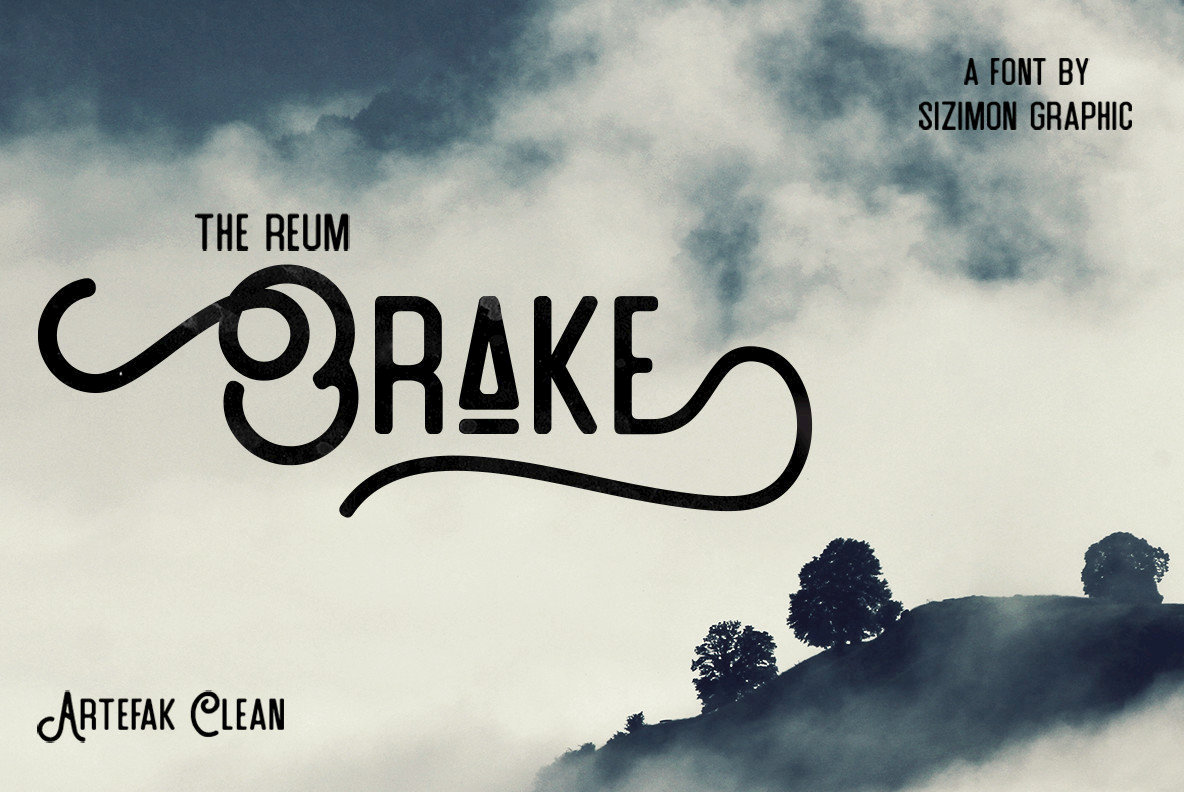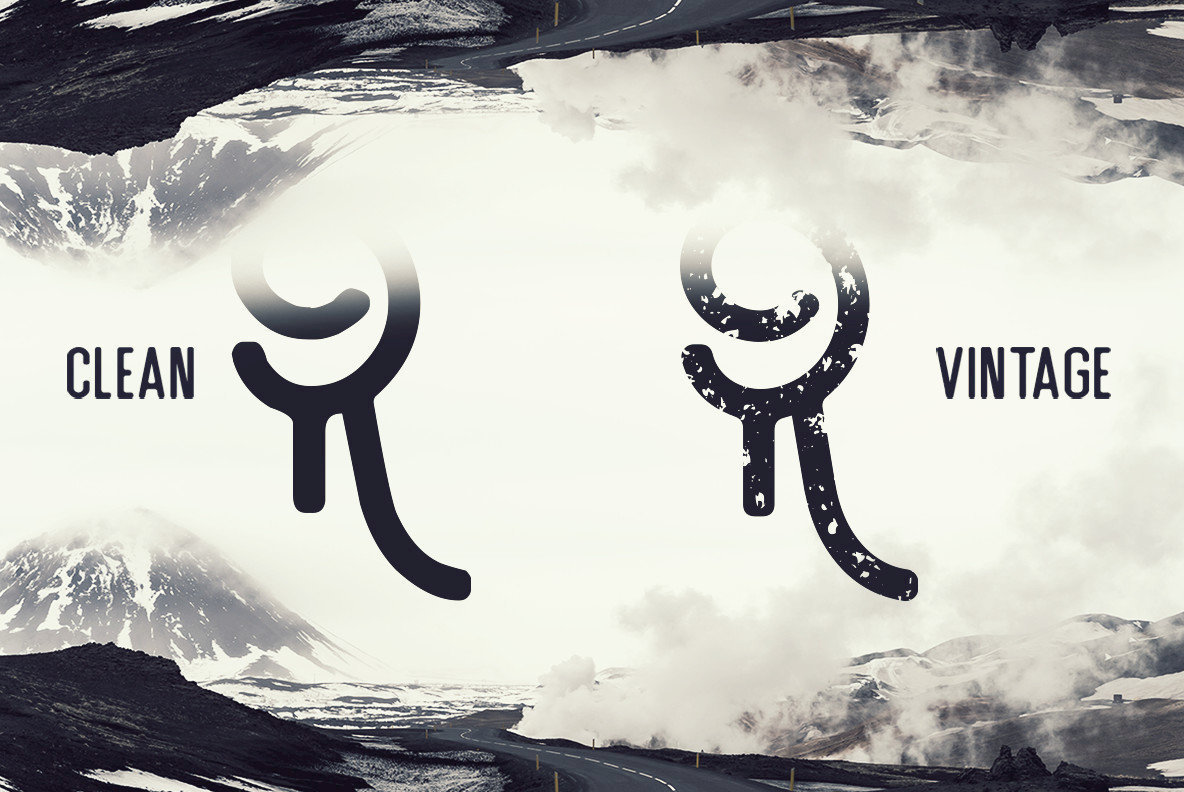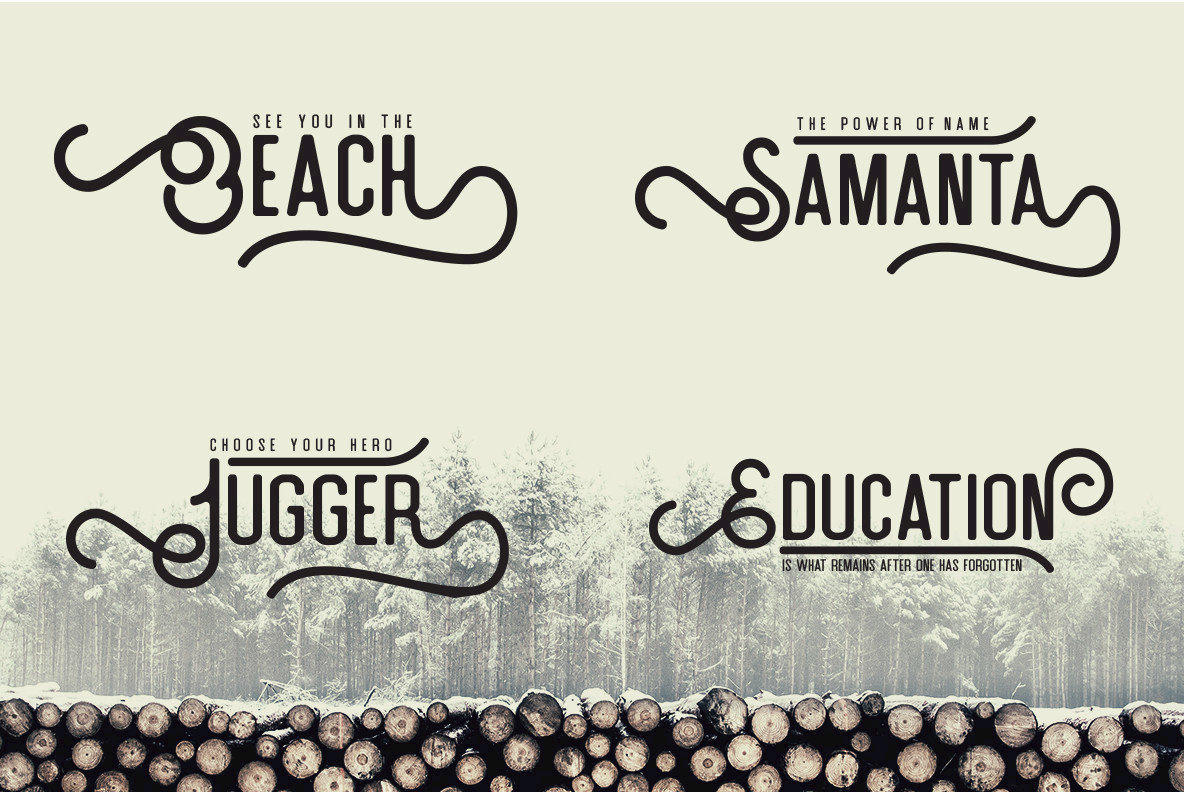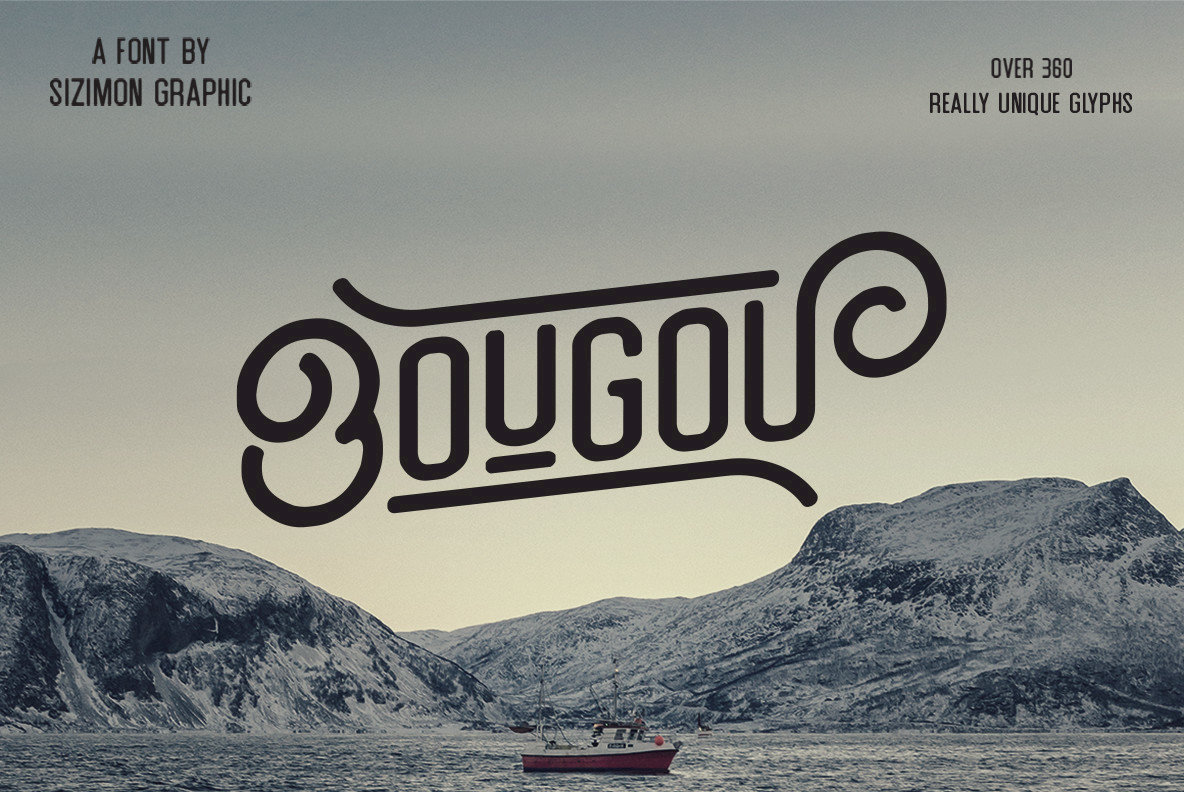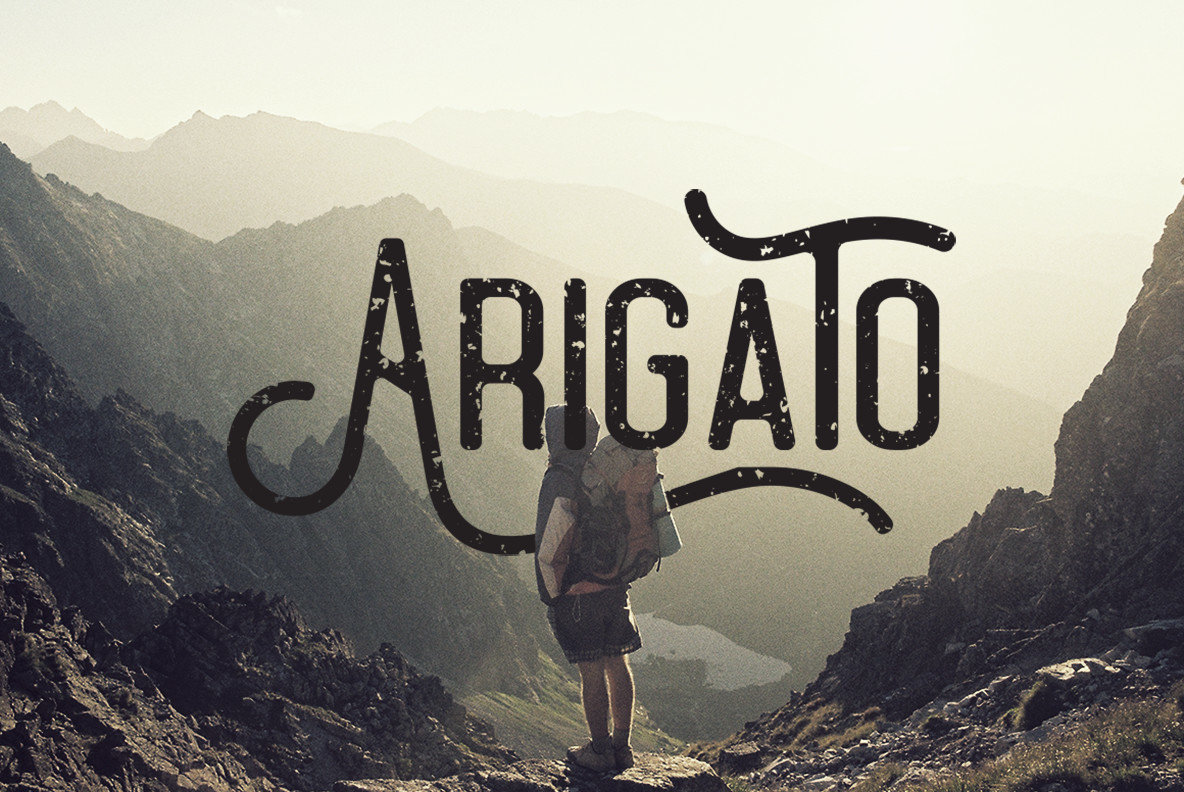
Artefak Font
Artefak Clean Typeface
Artefak is a handmade typeface with two styles (Clean and Vintage) that were inspired by hand drawn lettering.
- Uppercase, lowercase, numeral, punctuation, multilingual support & symbols
- Stylistic alternates
- Stylistic Set01 - Stylistic Set07
- Swash
- Titling